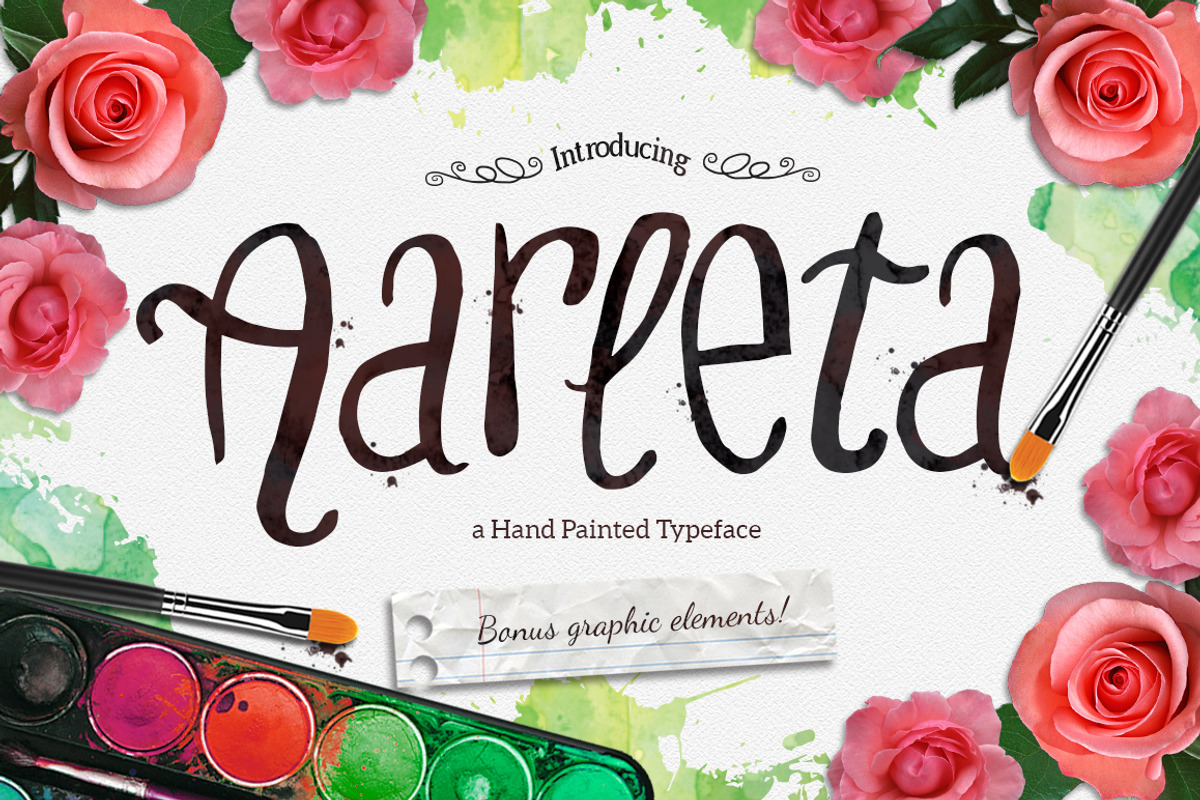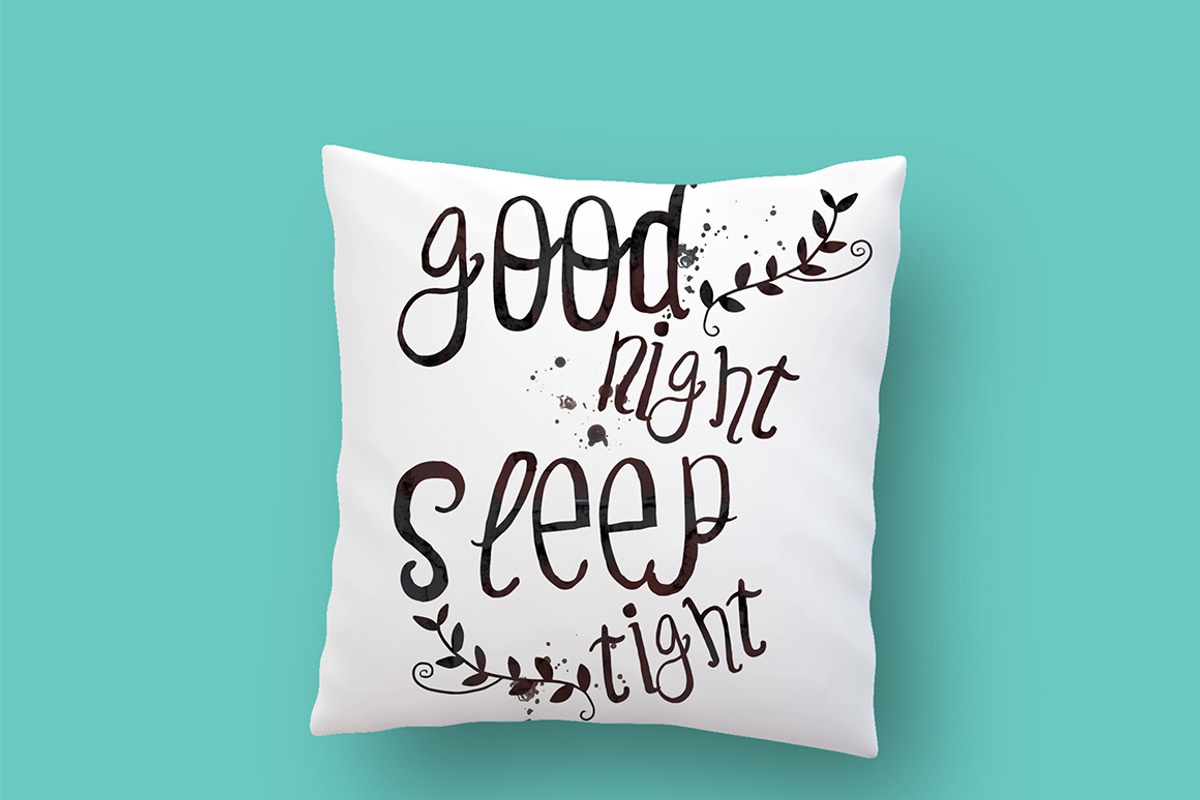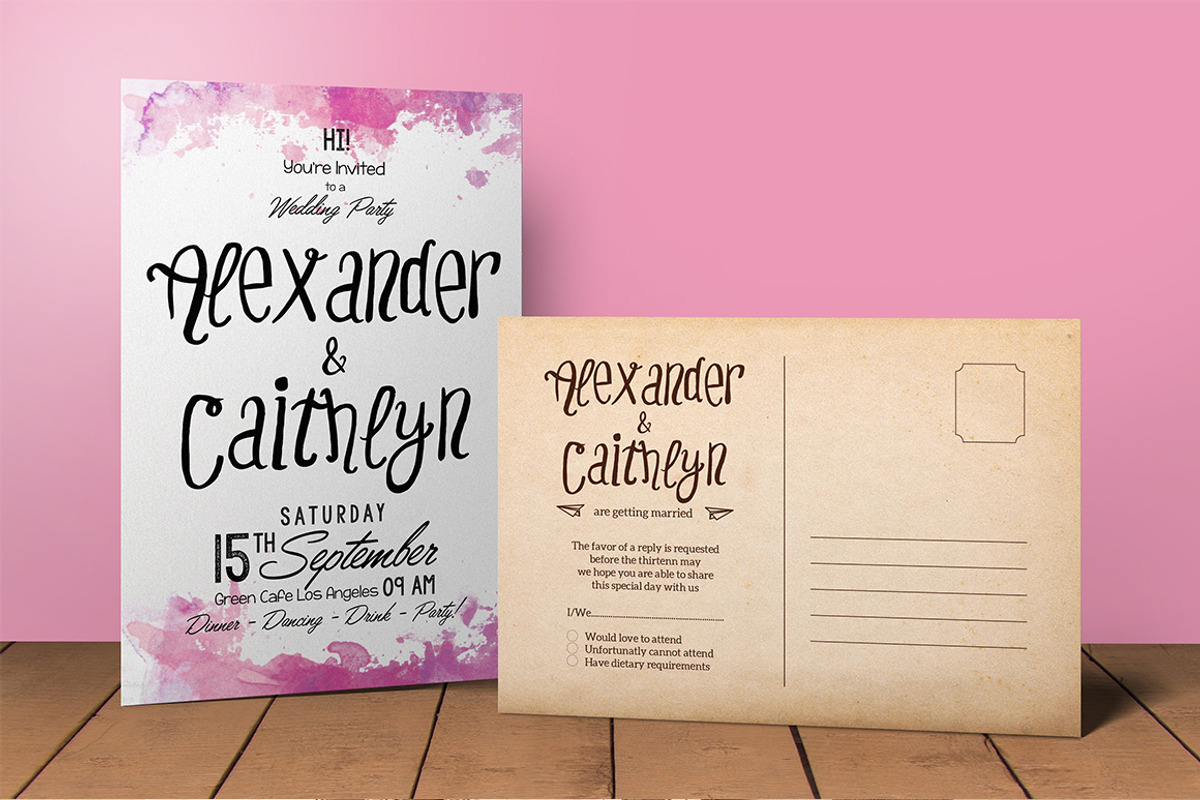
Aarleta Typeface
Aarleta Typeface by Aarley Kaiven is a font selected for branding, posters, packaging, typography.
Aarleta Typeface by Aarley Kaiven fits naturally into Branding, posters, packaging, typography.